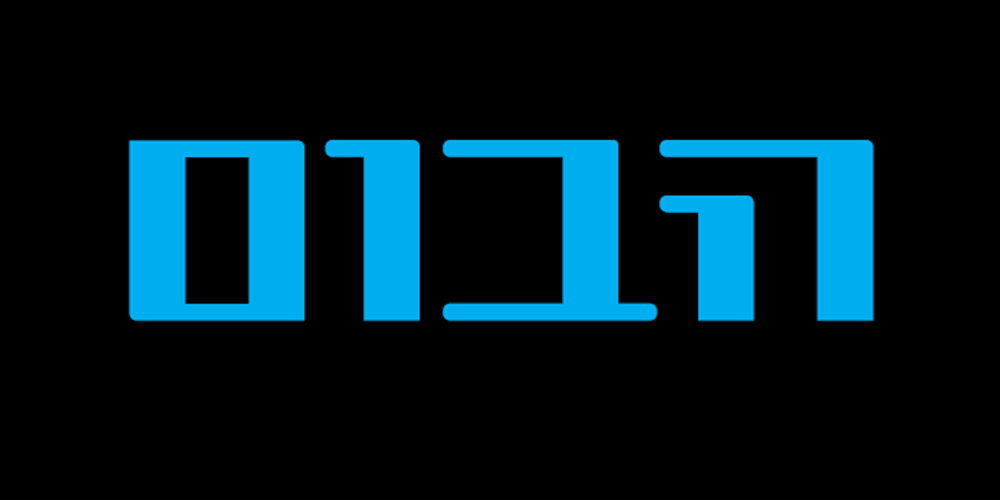
Todaa MF
Todaa MF font
Todaa MF Font Family was designed by Dor Cohen and published by Masterfont. Todaa MF contains 1 styles and family package options. Geometric forms and high contrast make this elegant font family a great companion for titles, invitations and signs, indoor and outdoor.